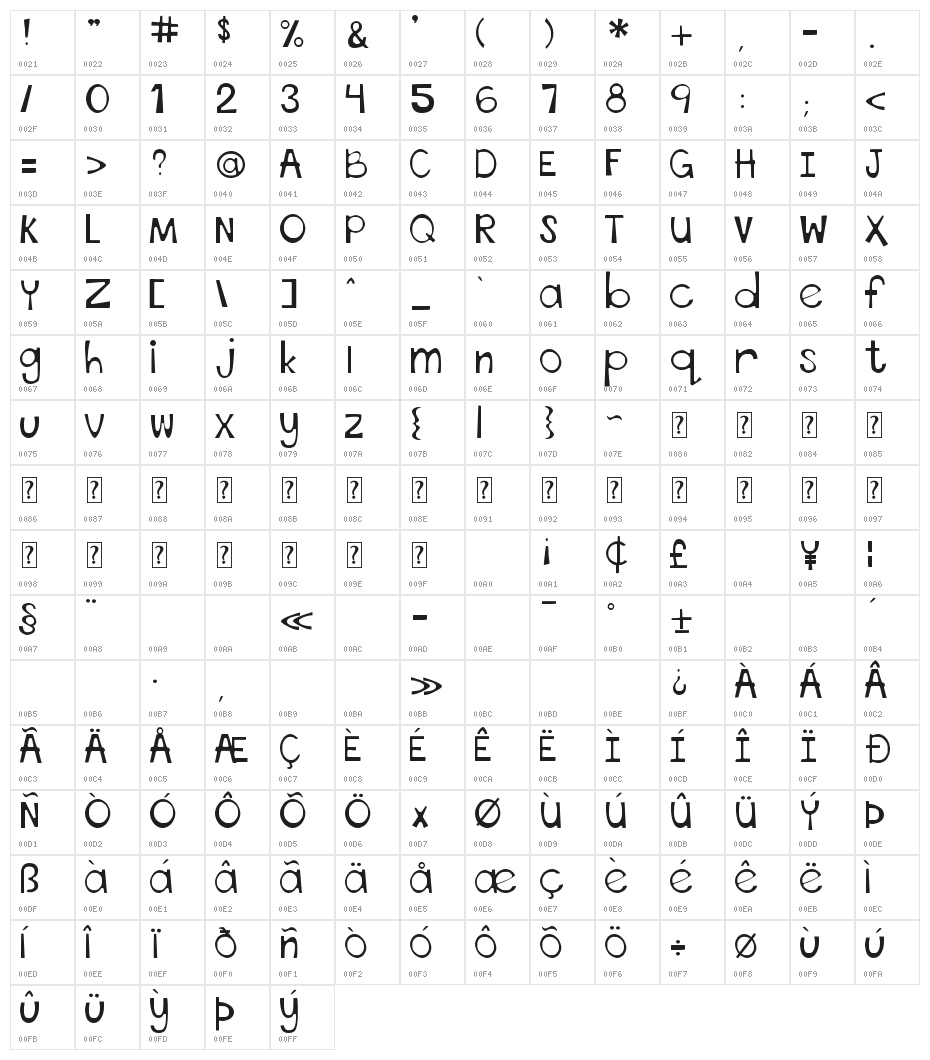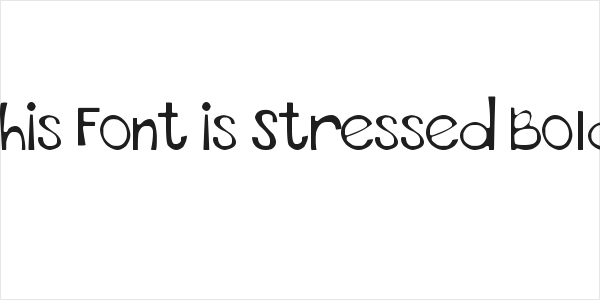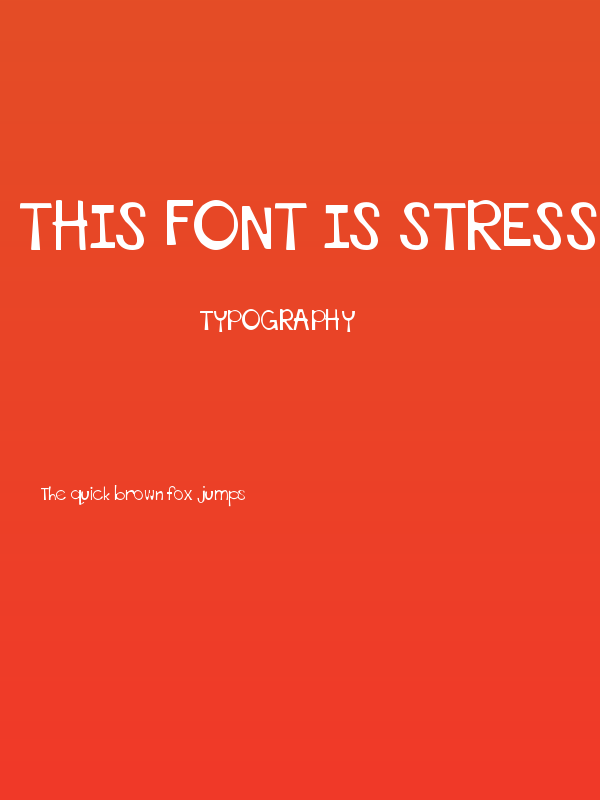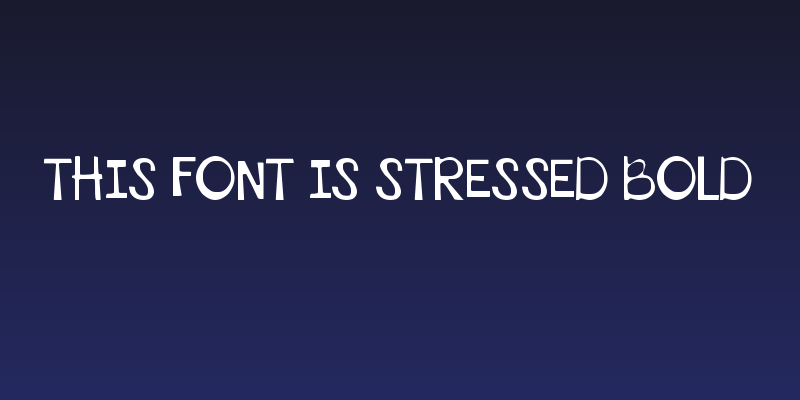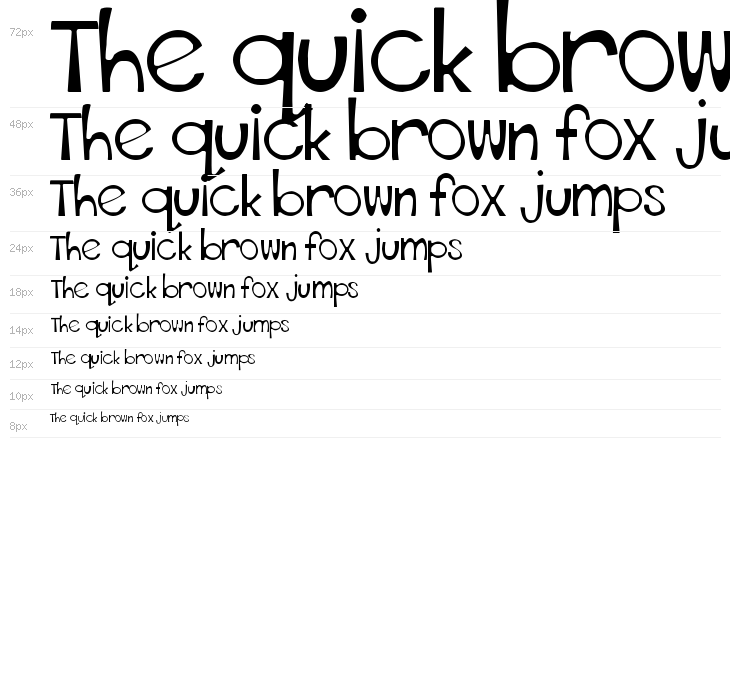
This Font is Stressed Bold Font
This Font is Stressed Bold Description
This font features a playful and whimsical style with a bold and slightly irregular appearance. The characters are designed with varying stroke thicknesses, giving them a hand-drawn, organic feel. The uppercase letters are distinct and bold, while the lowercase letters maintain a consistent style that complements the uppercase. The numerals are clear and easy to read, with a quirky touch that matches the overall aesthetic. Special characters are included, maintaining the same playful design. This font is suitable for projects that require a fun and informal look.